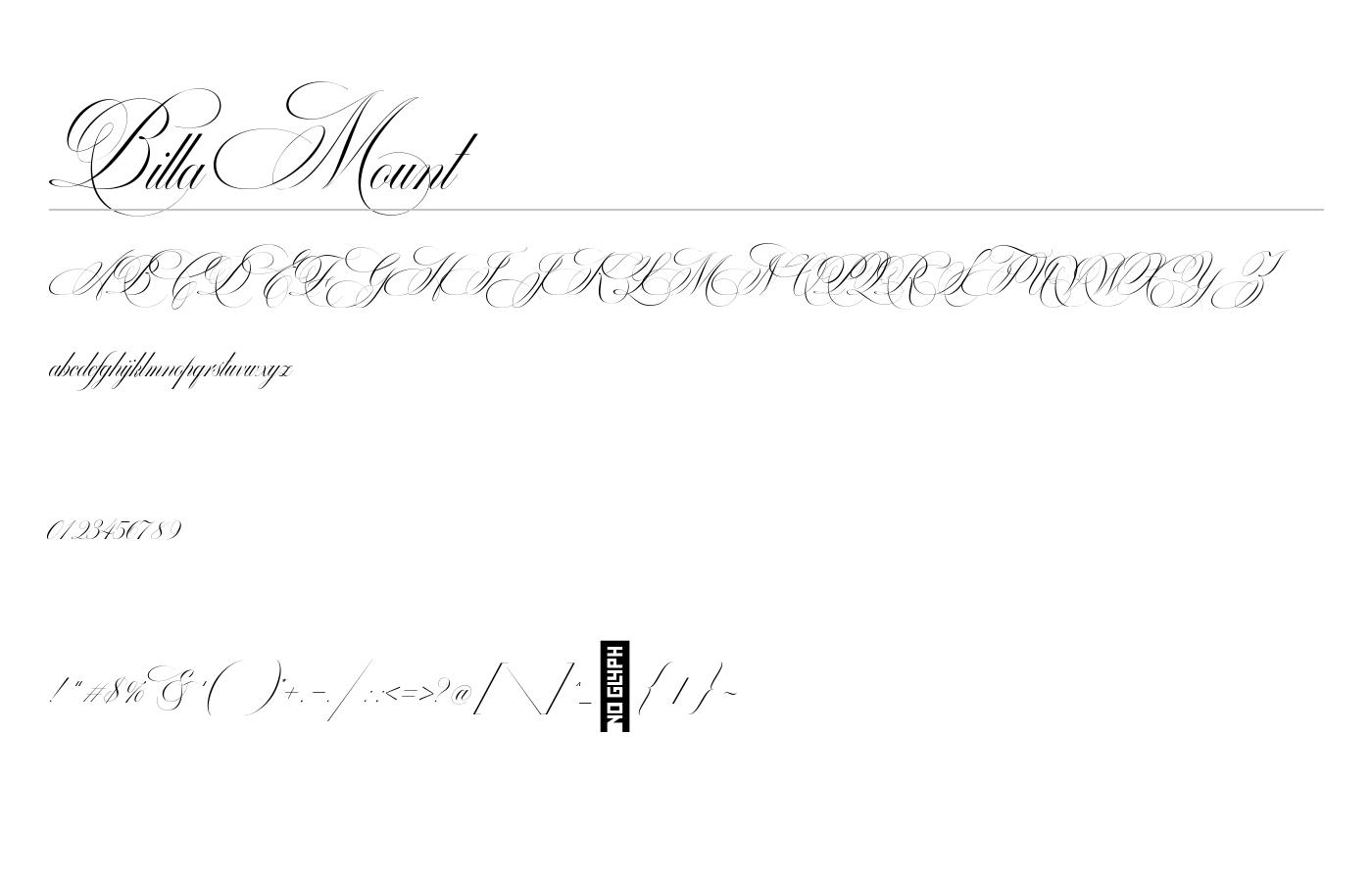
Billa Mount is an elegant script font characterized by its extremely thin strokes and elaborate, flowing swashes that create a refined and sophisticated appearance. With its high contrast and delicate letterforms, it evokes a classic, luxurious feel perfect for upscale invitations, branding, and editorial use where a touch of graceful sophistication is desired. This font excels in large display settings, adding a timeless and artistic flair to any design that requires an air of elegance and exclusivity.
Billa Mount Font
About Billa Mount Font
| Font family | Billa Mount Font |
| Designer | Kana Widana |